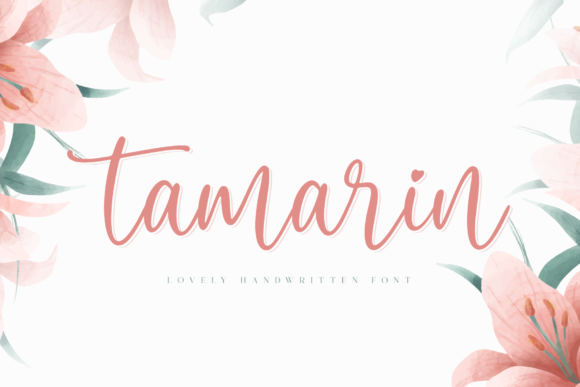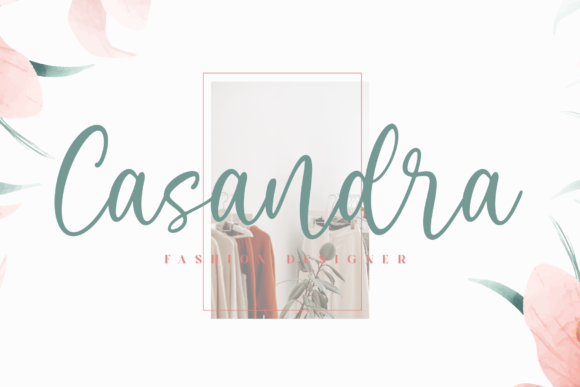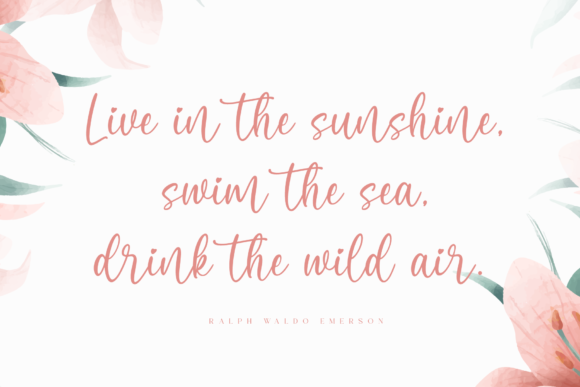
Tamarin Font
Tamarin is a romantic and sweet calligraphy typeface with characters that dance along the baseline. It will add a luxury spark to any design project that you wish to create! This font is PUA encoded which means you can access all glyphs and swashes with ease!